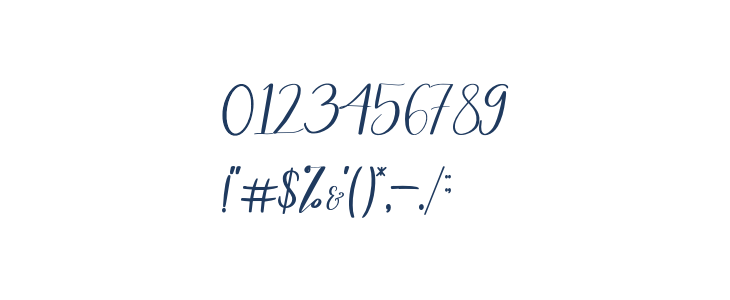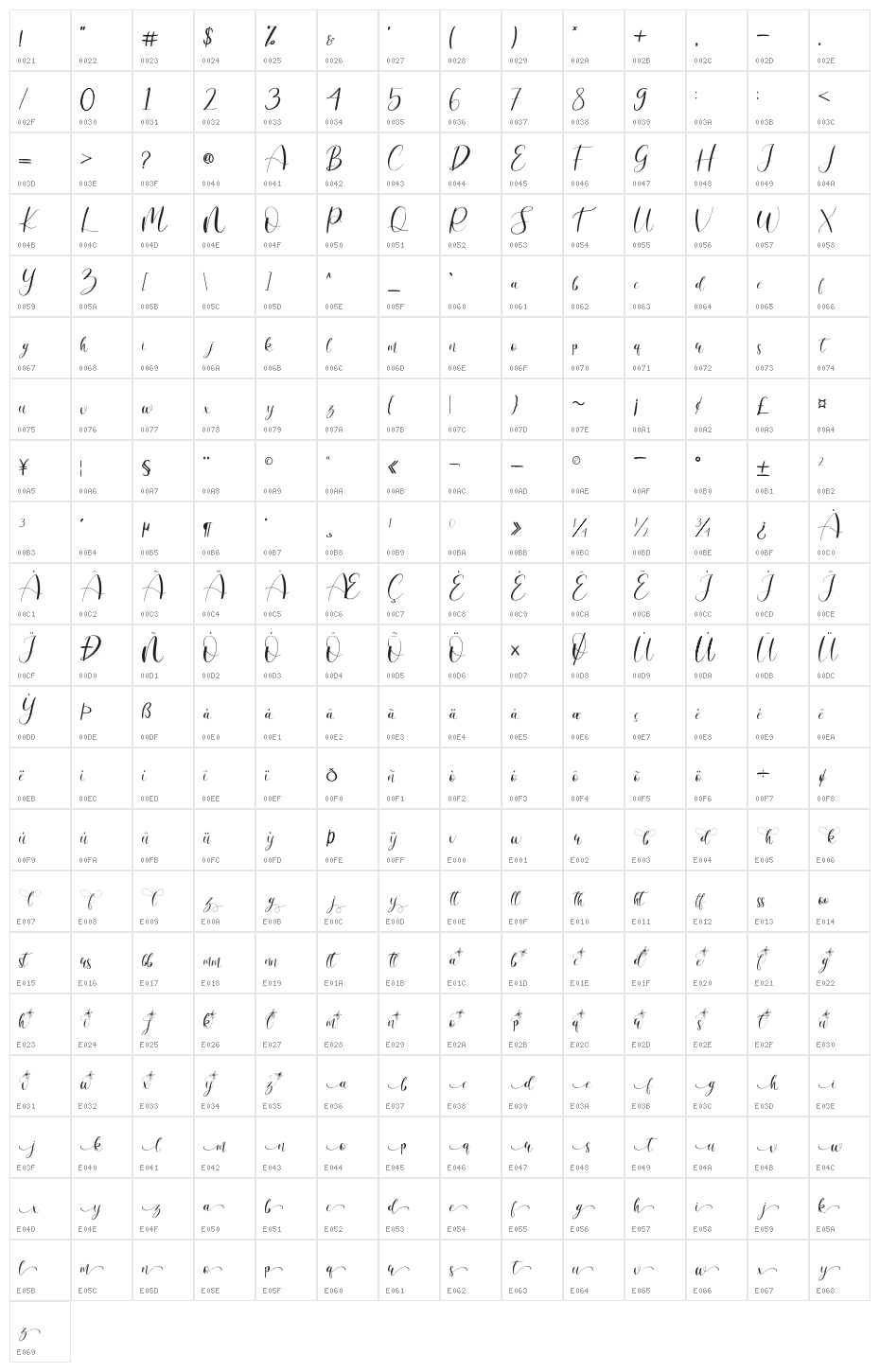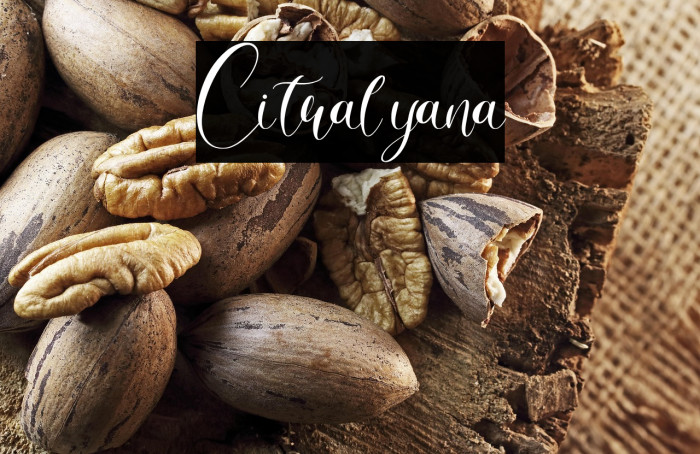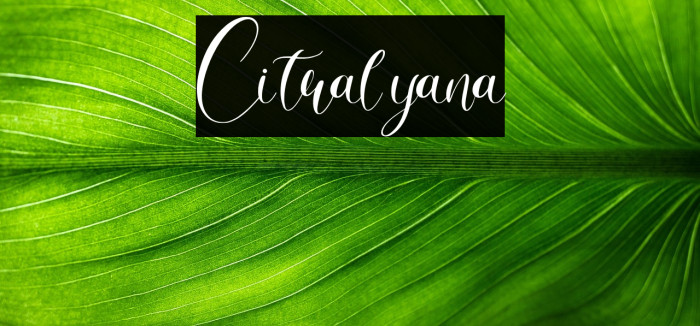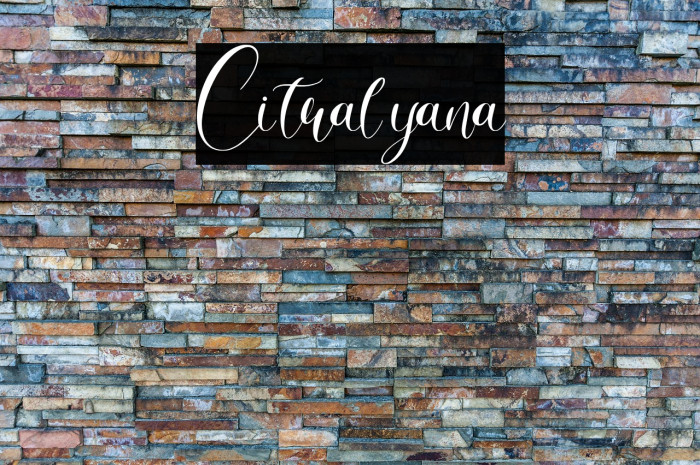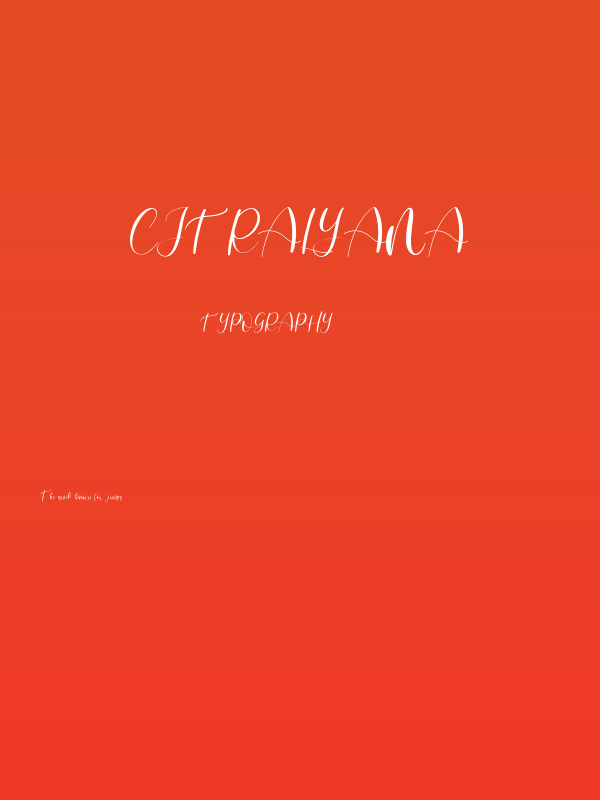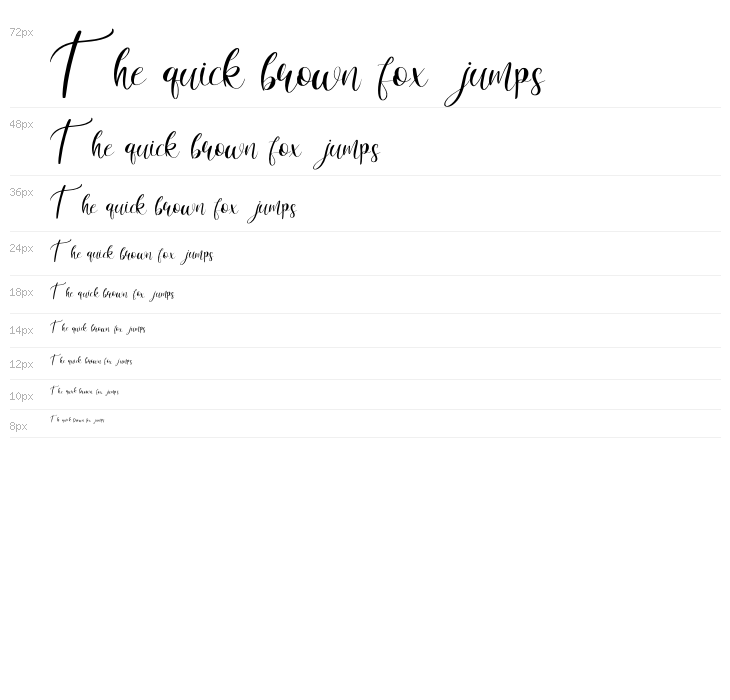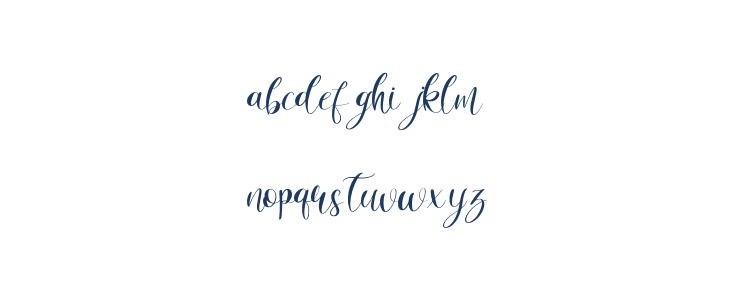
Citralyana Font
Citralyana Description
This font features an elegant and flowing script style, characterized by its smooth, cursive strokes and graceful curves. The uppercase letters are bold and sweeping, with a sense of movement that adds a dynamic quality to the text. The lowercase letters maintain a consistent fluidity, complementing the uppercase with their delicate and intricate design. The numerals are stylish and maintain the script's overall aesthetic, while the special characters are seamlessly integrated, ensuring versatility in various design contexts. The font's overall appearance is sophisticated and artistic, making it suitable for projects that require a touch of elegance and flair.
| Proposed Projects | Ideal for wedding invitations, branding, greeting cards, and elegant packaging designs. |